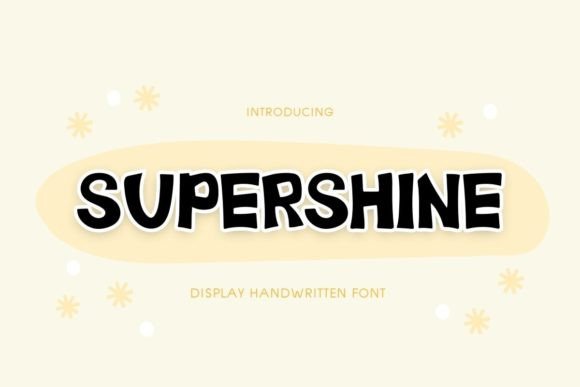
Get ready to unlock the world of creativity and allure with Super Shine Font. This captivating display font is the epitome of joy and playfulness, radiating a groovy and fun vibe that is sure to bring your designs to life. SUPER SHINE is more than just a font; it's an invitation to embark on a whimsical adventure where imagination takes center stage.
Picture this: Your designs transformed into masterpieces, brimming with charm and delight. Whether it's a kids' design, a birthday invitation, a summery creation, or a t-shirt design that speaks to your wild side, Super Shine Font is your perfect companion. Unleash your inner child and let the vibrant energy of this font infuse your creations with a touch of magic.
With Super Shine Font, you'll have the power to create designs that capture hearts and spark smiles. Its cute and adorable style is perfect for adding a touch of sweetness to any project. Imagine crafting stickers that bring joy to every surface they adorn or designing sublimation prints that radiate personality and warmth. Super Shine Font is your key to transforming the ordinary into the extraordinary.
But wait, there's more! Super Shine Font is incredibly versatile, adapting seamlessly to a myriad of design needs. Whether you're a seasoned graphic designer or just starting your creative journey, this font is your ultimate sidekick. Its effortless charm and captivating presence will elevate your designs, making them stand out from the crowd.
So, dive headfirst into the world of Super Shine Font and let your imagination soar. Embrace the cuteness, the fun, and the endless possibilities that await you. With this remarkable font by your side, you'll create designs that radiate joy, inspire smiles, and leave a lasting impression on all who encounter them.